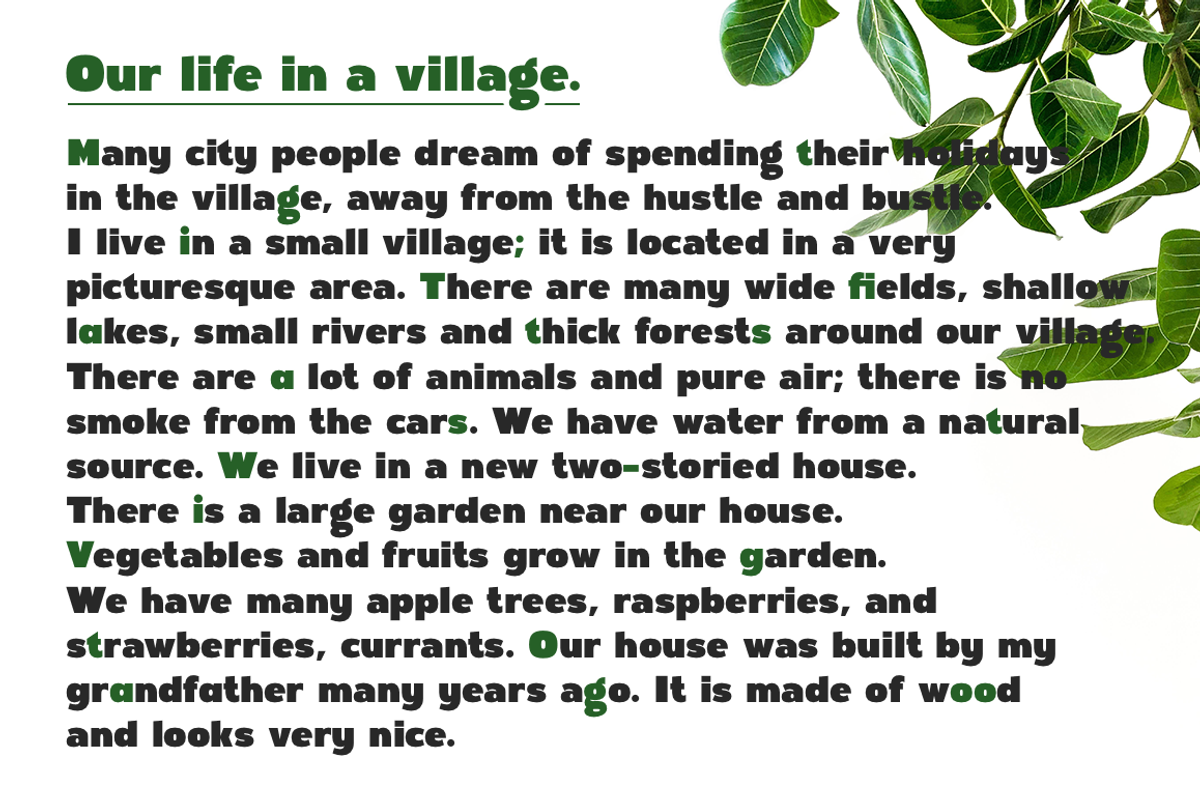
Firm
Firm is a black sans serif font.
Perfectly attracts attention due to its shapes. with it, you can highlight important information in your text, and it is also perfect for creating a logo.This font represents alternates lowercase, ampersand and ligatures, math symbols, arrows, fractions, and multilingual support.